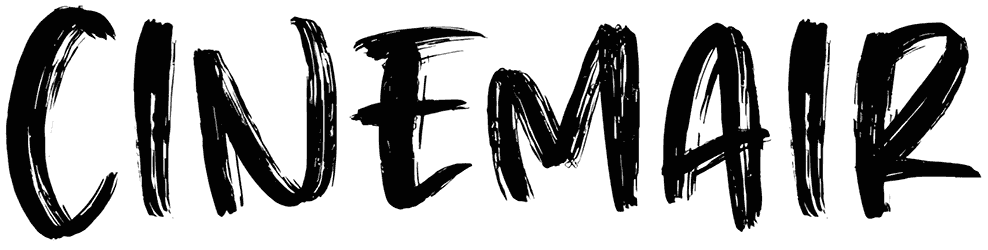
Cinemair Font
Posters, flyers, invitations, and any other place where hand-drawn effects are desired can benefit from Cinemair, an organic script, and brush font.
While there are no lowercase letters in the Cinemair font, the two sets of uppercase letters may help you stand out due to their saucy cinematic vibe. It is available for quick and easy download from RB’s font library, where you can also find a plethora of other premium brush fonts. Enjoy.